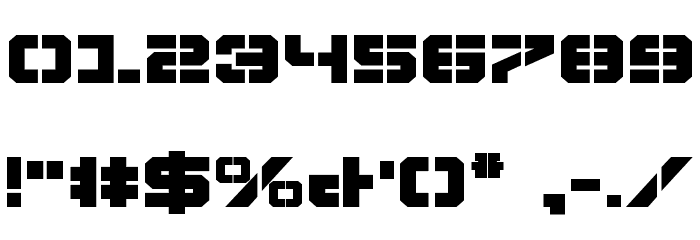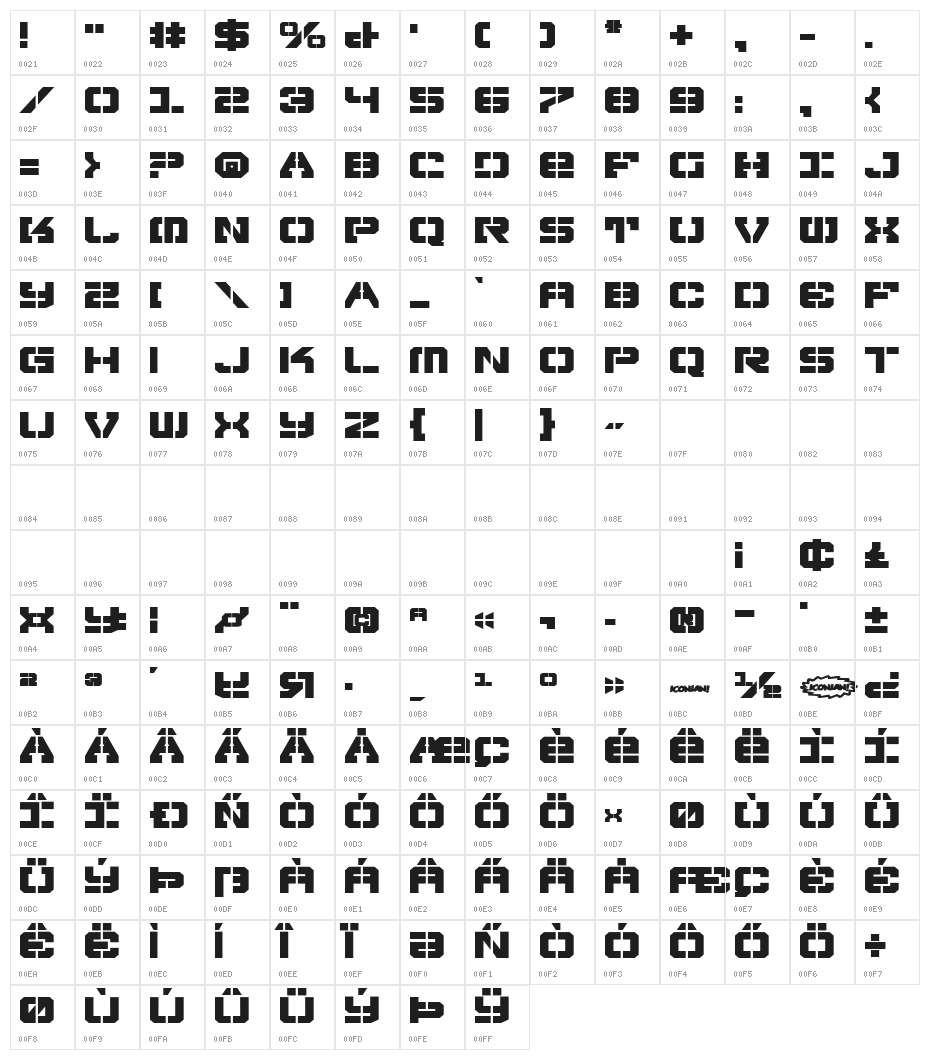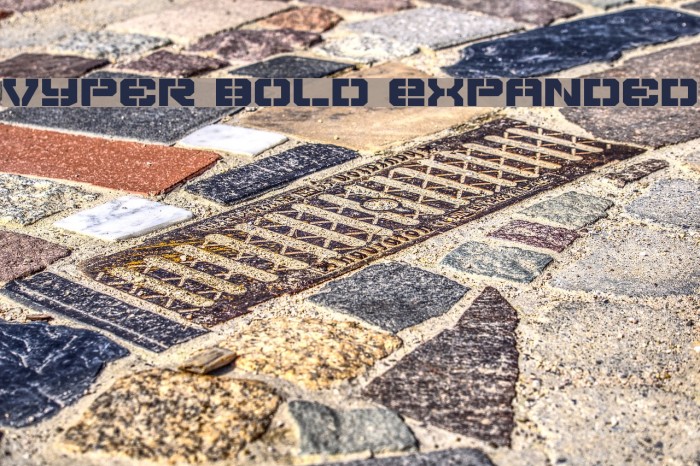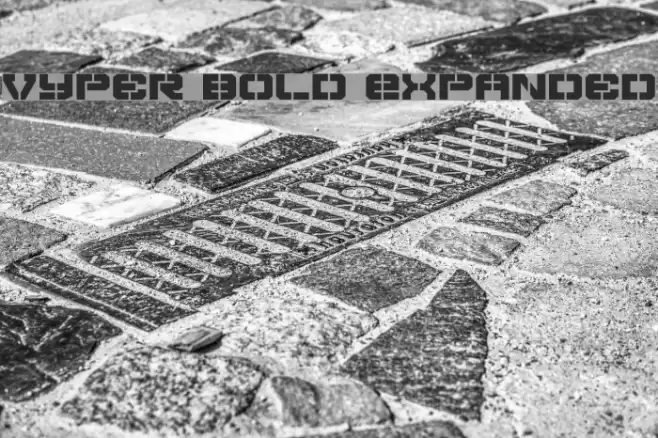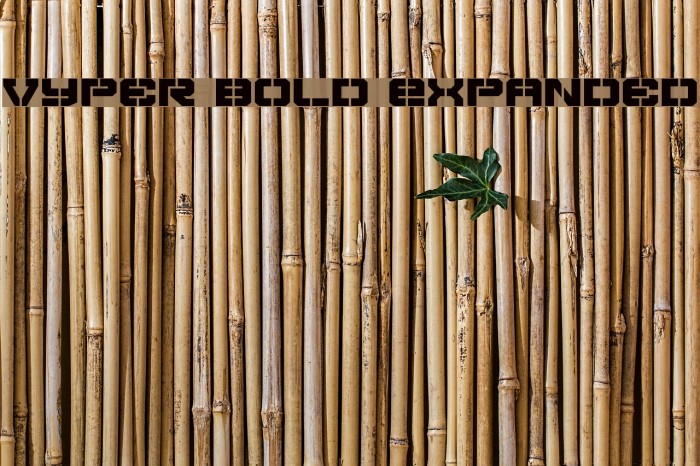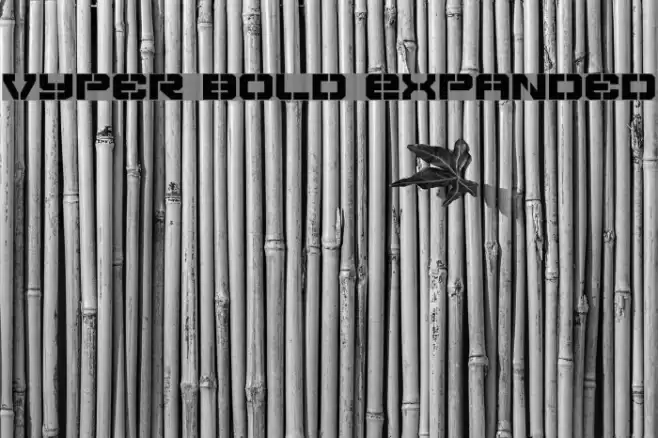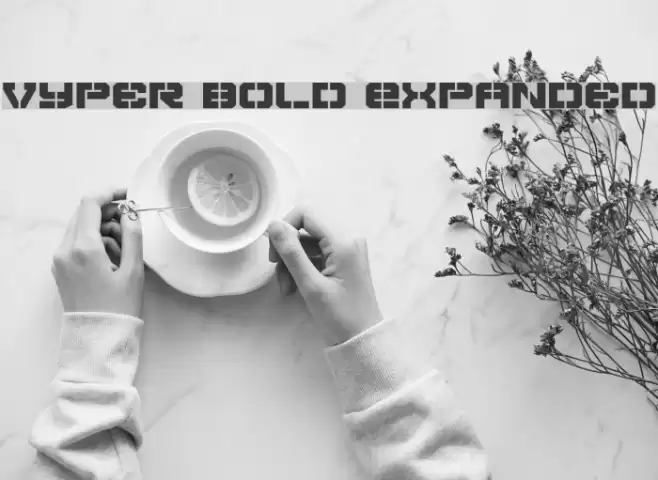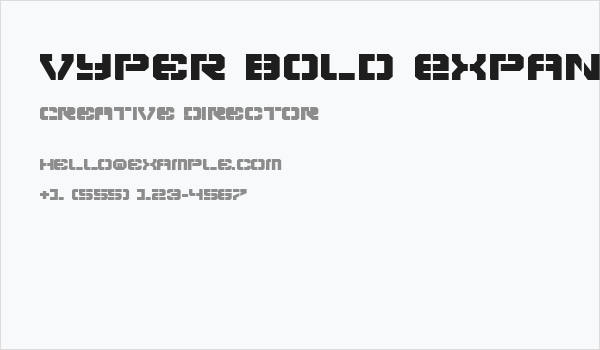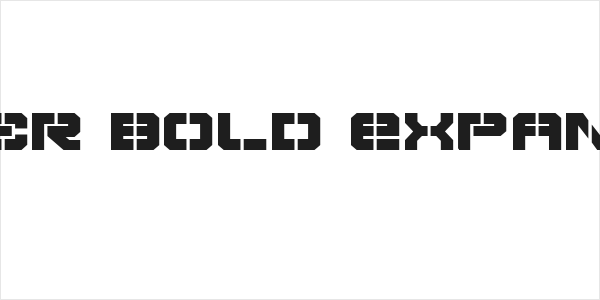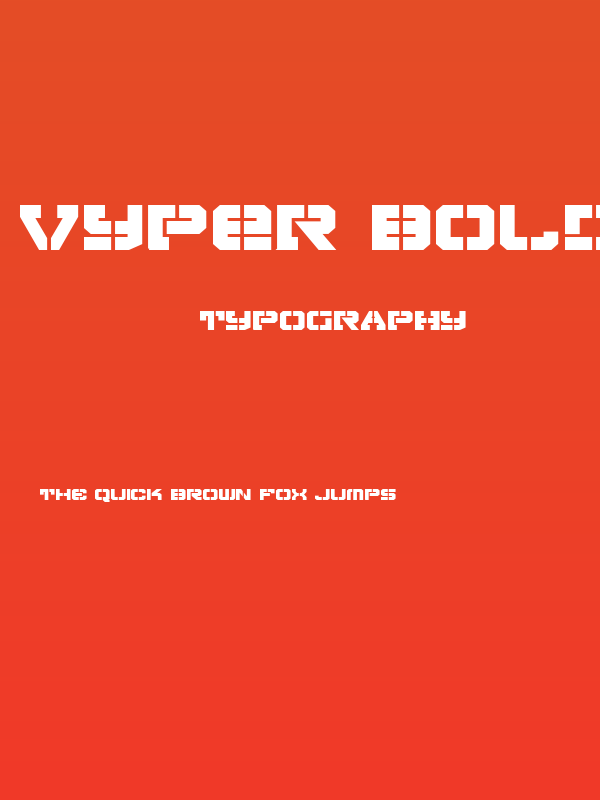
Vyper Bold Expanded Font
Vyper Bold Expanded Description
This font features a bold, geometric design with a futuristic and industrial feel. The characters are constructed with sharp angles and a blocky appearance, giving it a strong and commanding presence. The expanded width of the letters enhances its readability and makes it suitable for impactful headlines. The uniformity in stroke thickness across the characters provides a consistent and cohesive look. Its unique style makes it stand out, ideal for projects that require a modern and edgy aesthetic.
| Proposed Projects | Ideal for branding, posters, video game graphics, and sci-fi themed projects. |